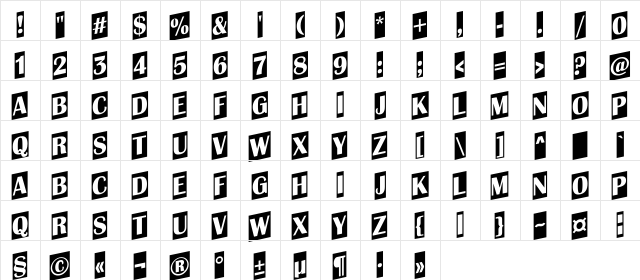
a_AlbionicTitulCmUp Regular
Design Context for a_AlbionicTitulCmUp Typeface
a_AlbionicTitulCmUp takes a measured approach to typography — its balanced proportions and neutral character make it a reliable workhorse for both digital and print work.